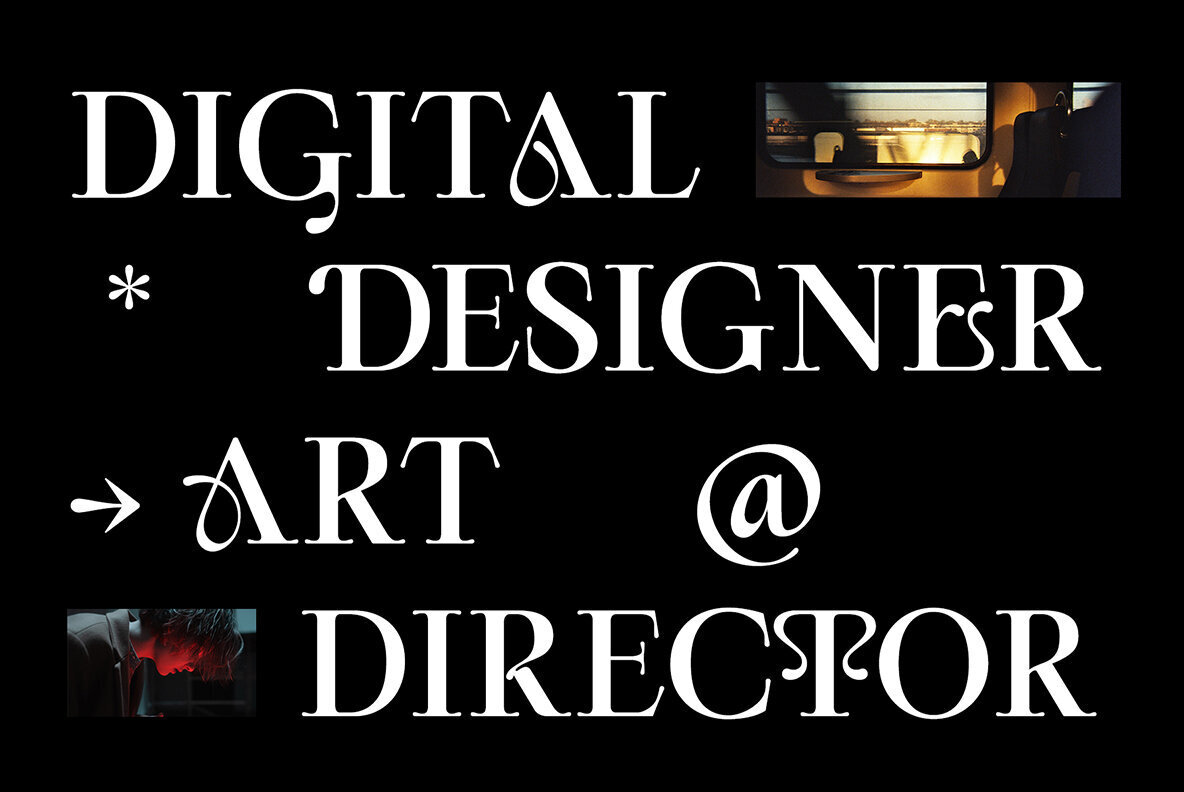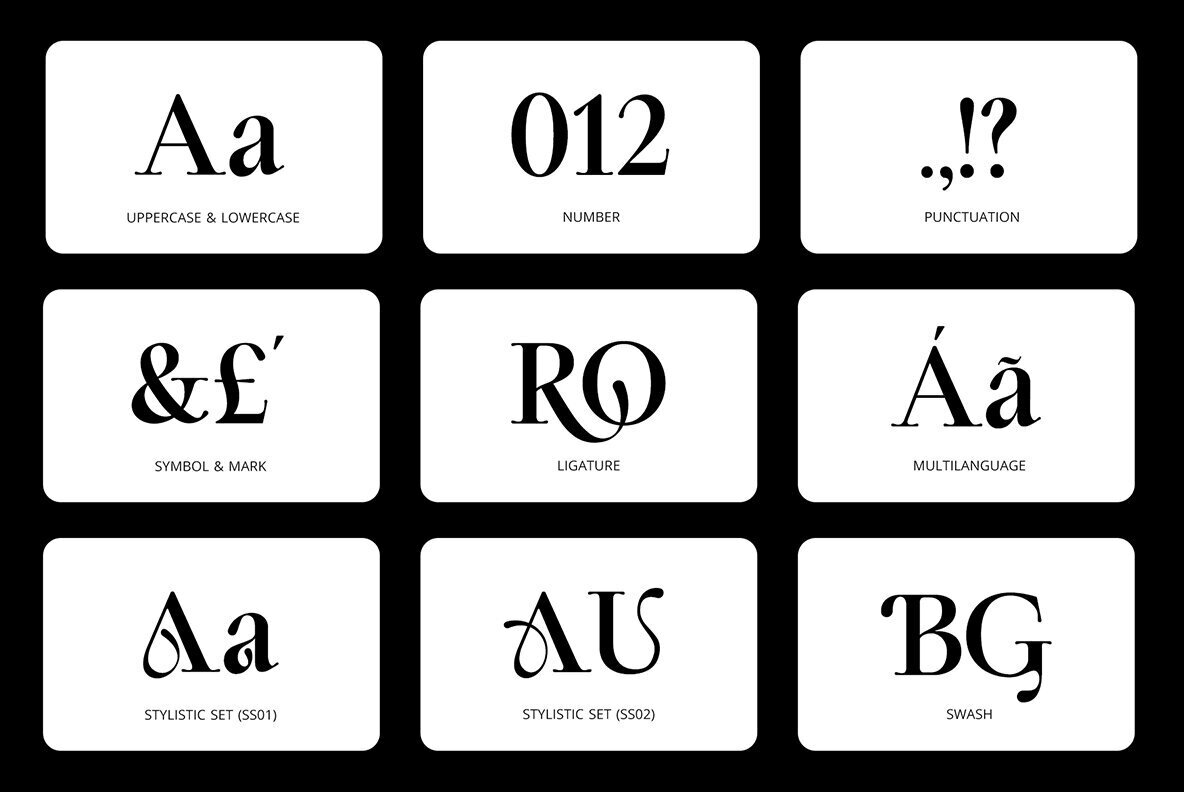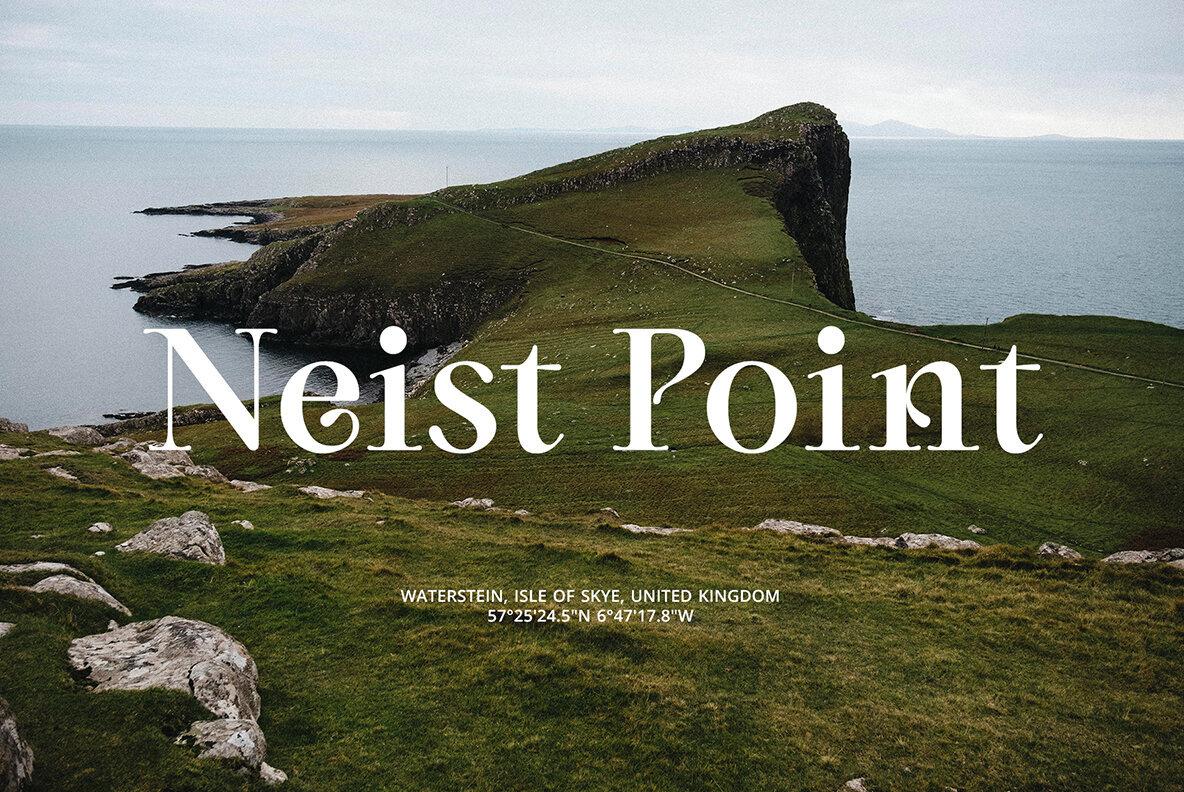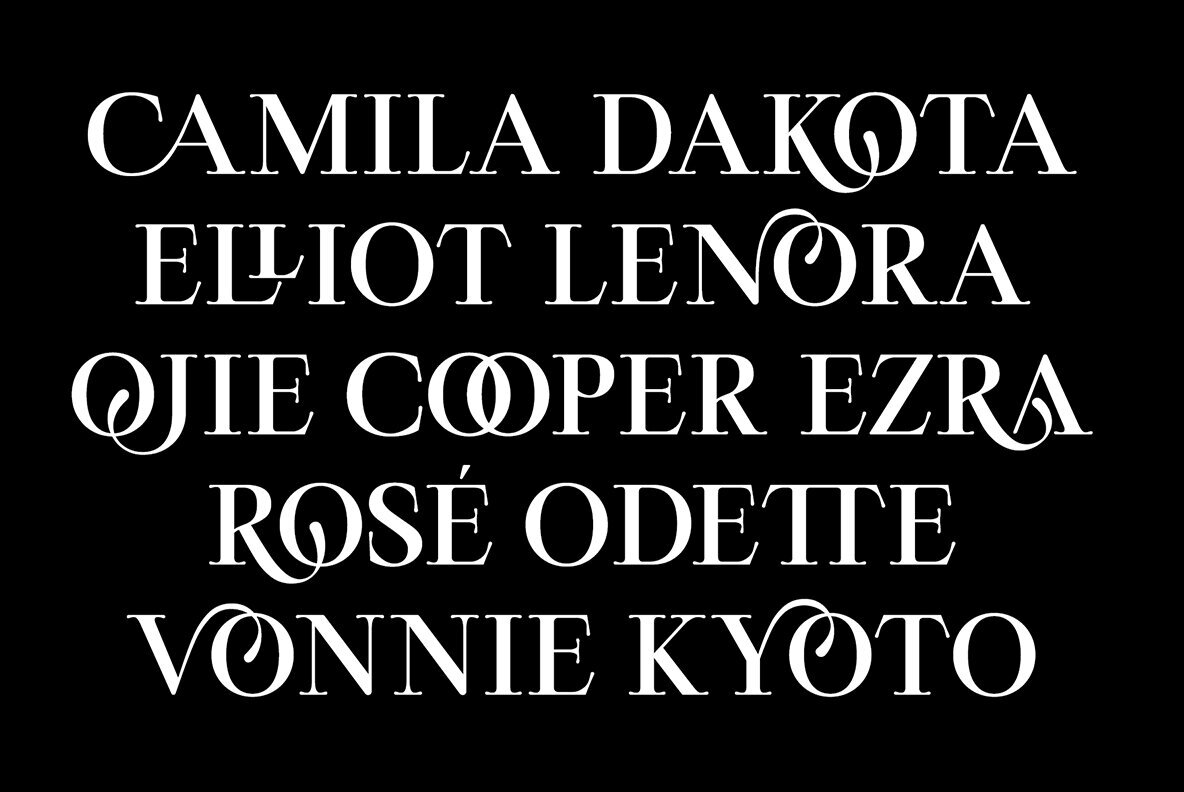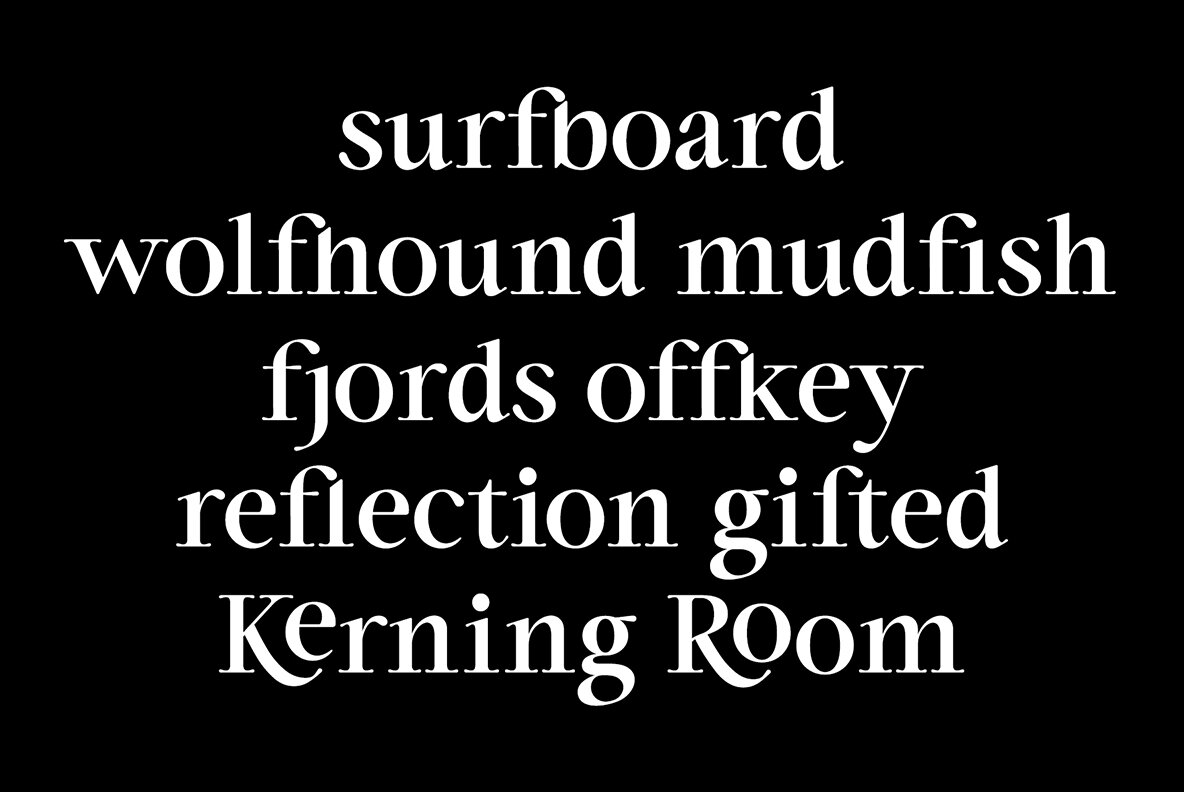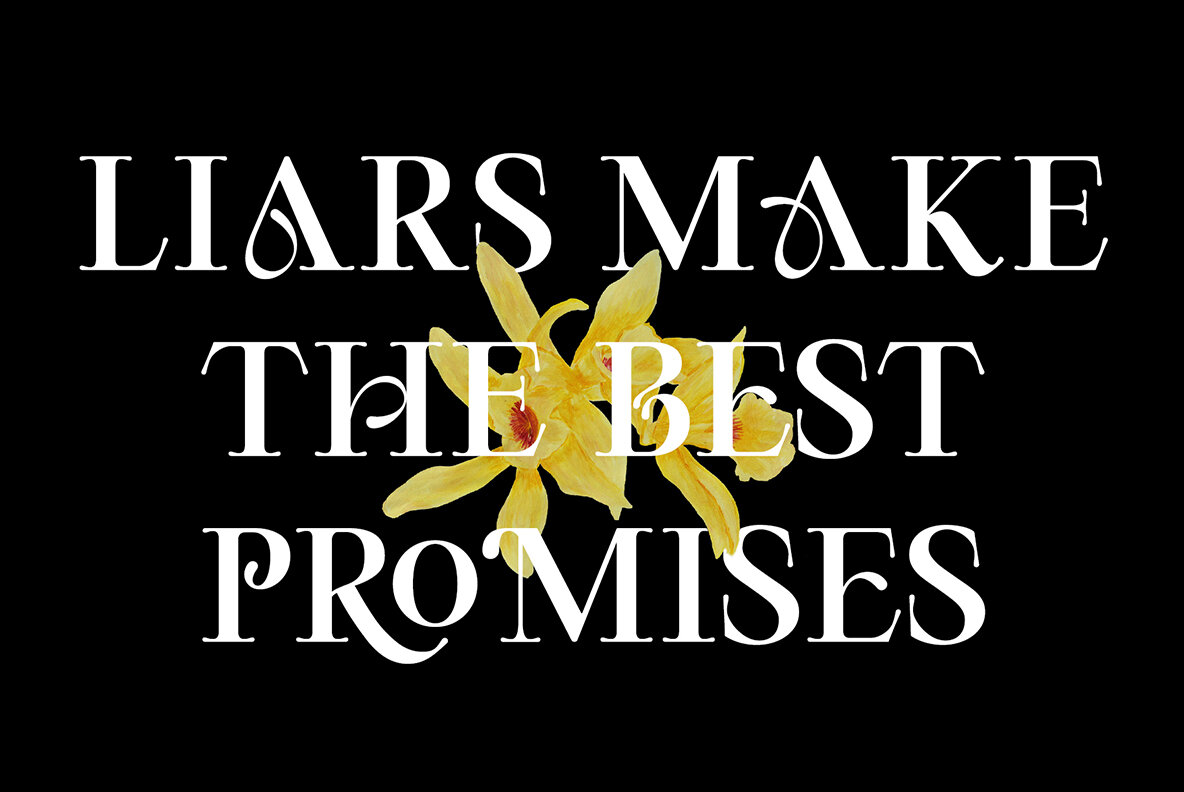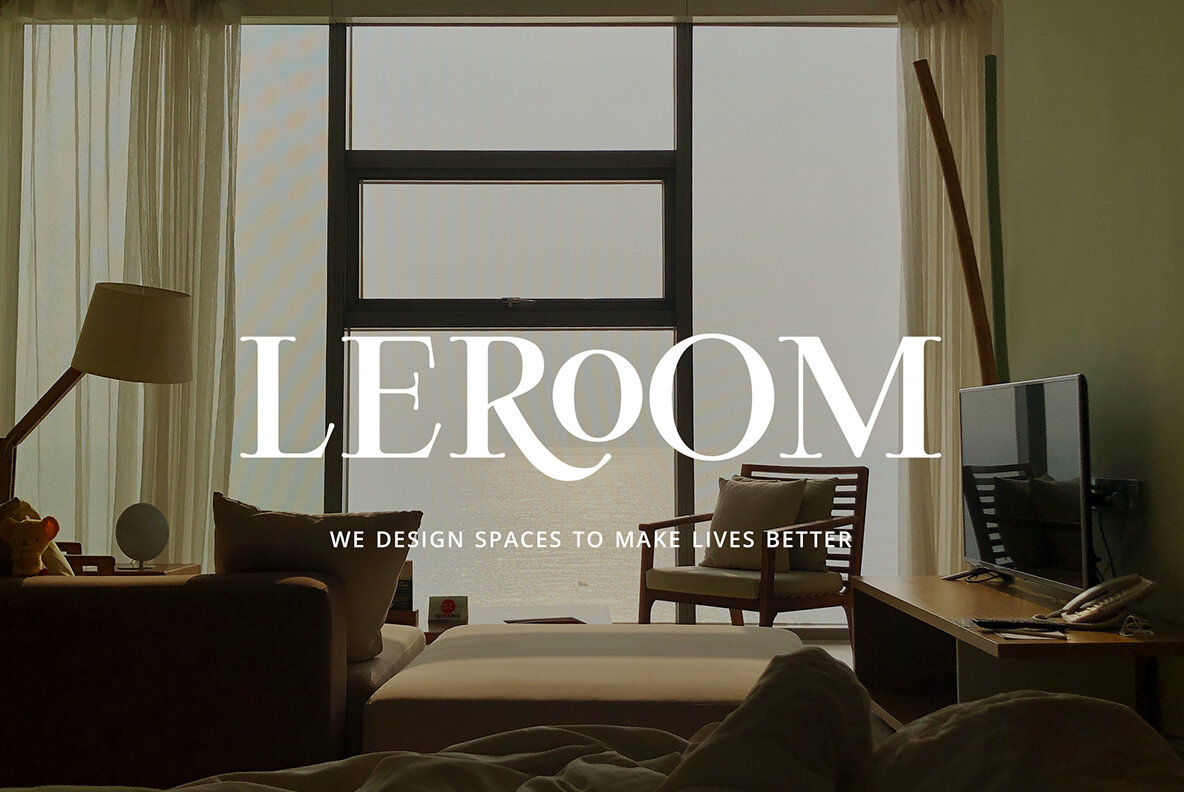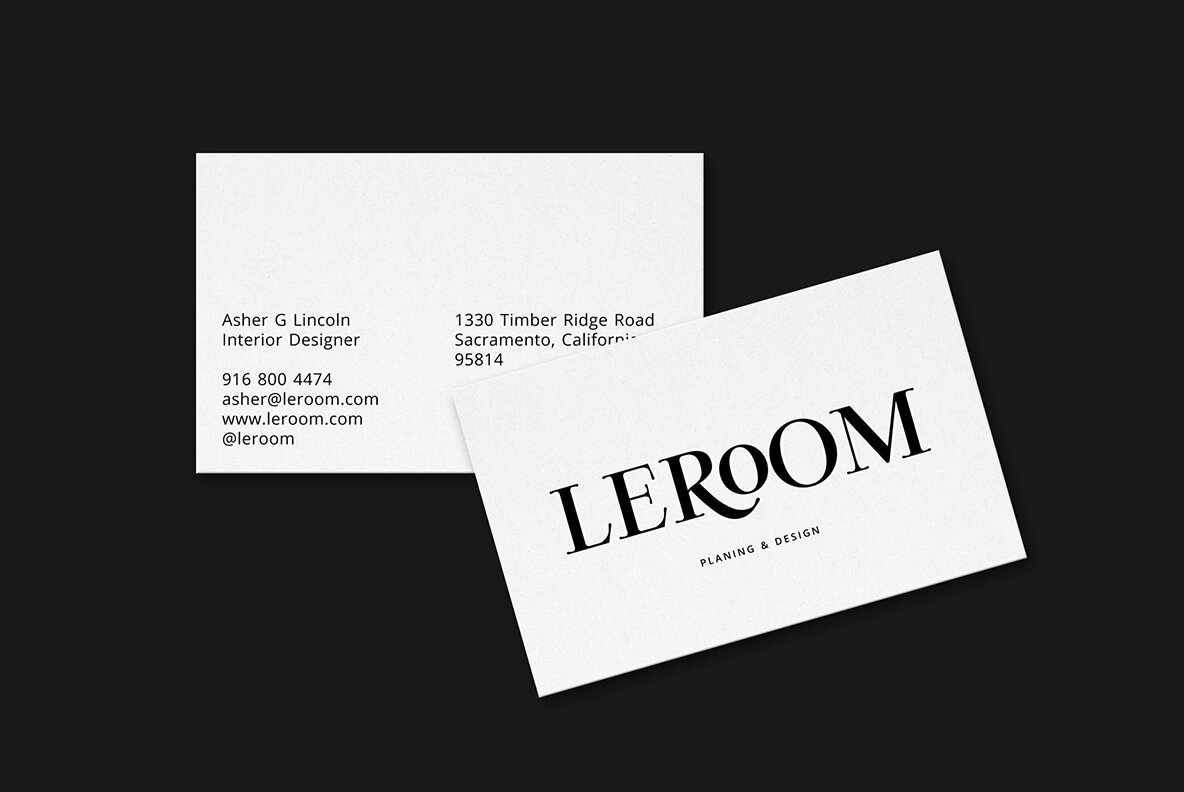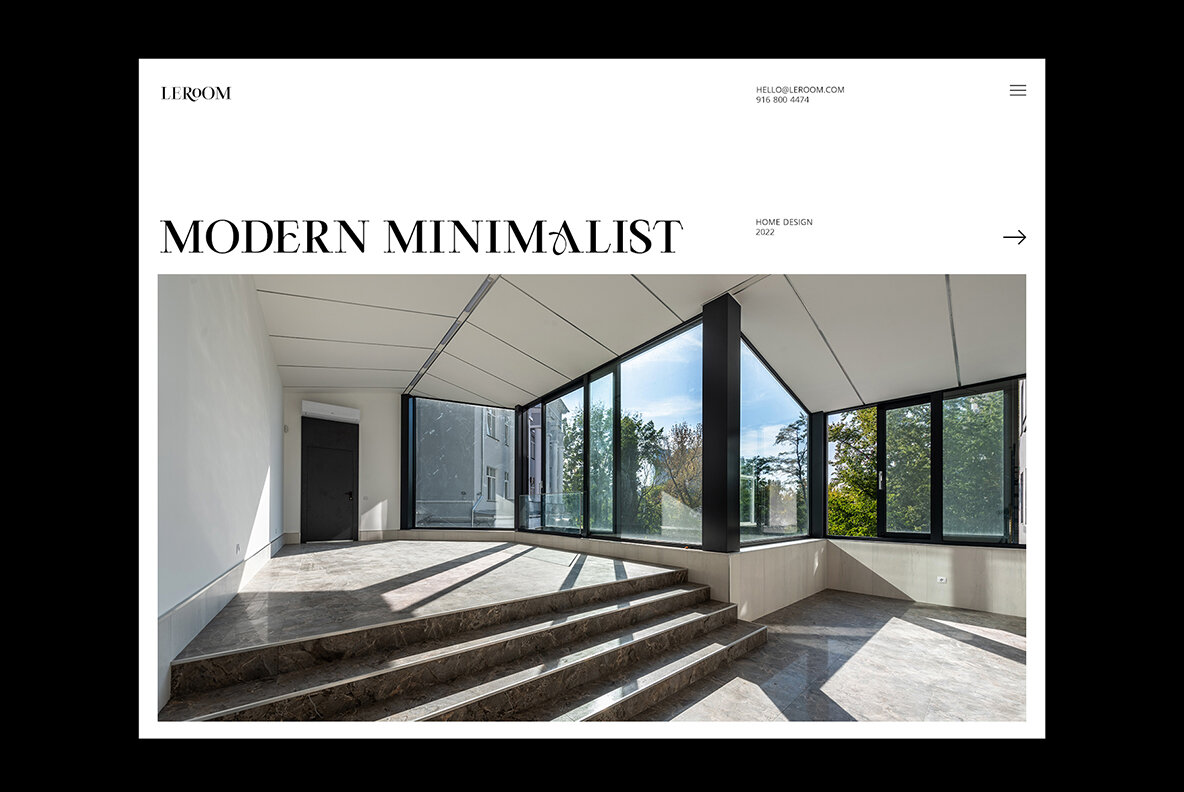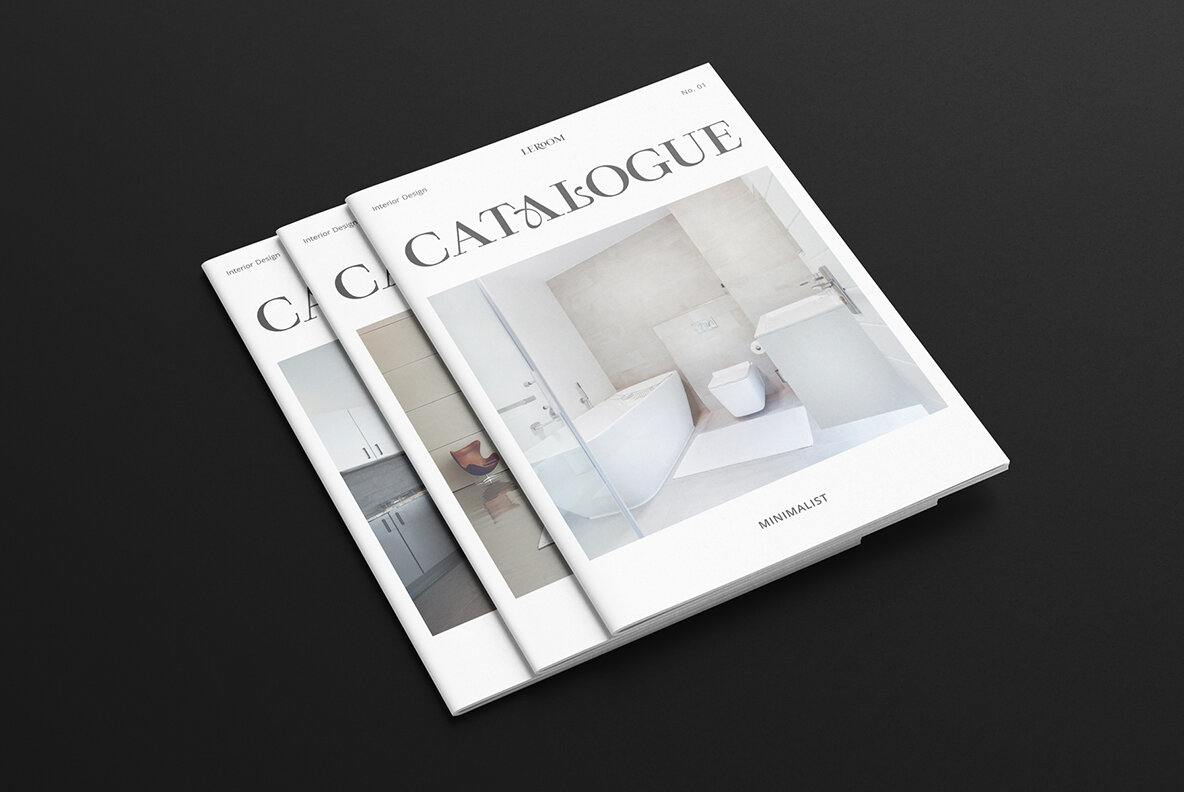
ED Promise Font
ED Promise Regular
The ED Promise font offers a unique, stylistic character set designed to captivate and engage. As a serif display font, it stands out with its sophisticated ligatures and a suite of opentype features that enrich any creative work. This font is particularly well-suited to projects that demand a touch of elegance and distinctiveness. Features: Ideal for a wide array of applications, ED Promise excels in logotypes, printed quotes, and invitations. Its adaptability extends to cards, product packaging, headers, letterheads, and apparel design. It seamlessly enhances web design, magazines, and books, providing a classic yet contemporary aesthetic.ED Promise: A Distinctive Serif Display Font